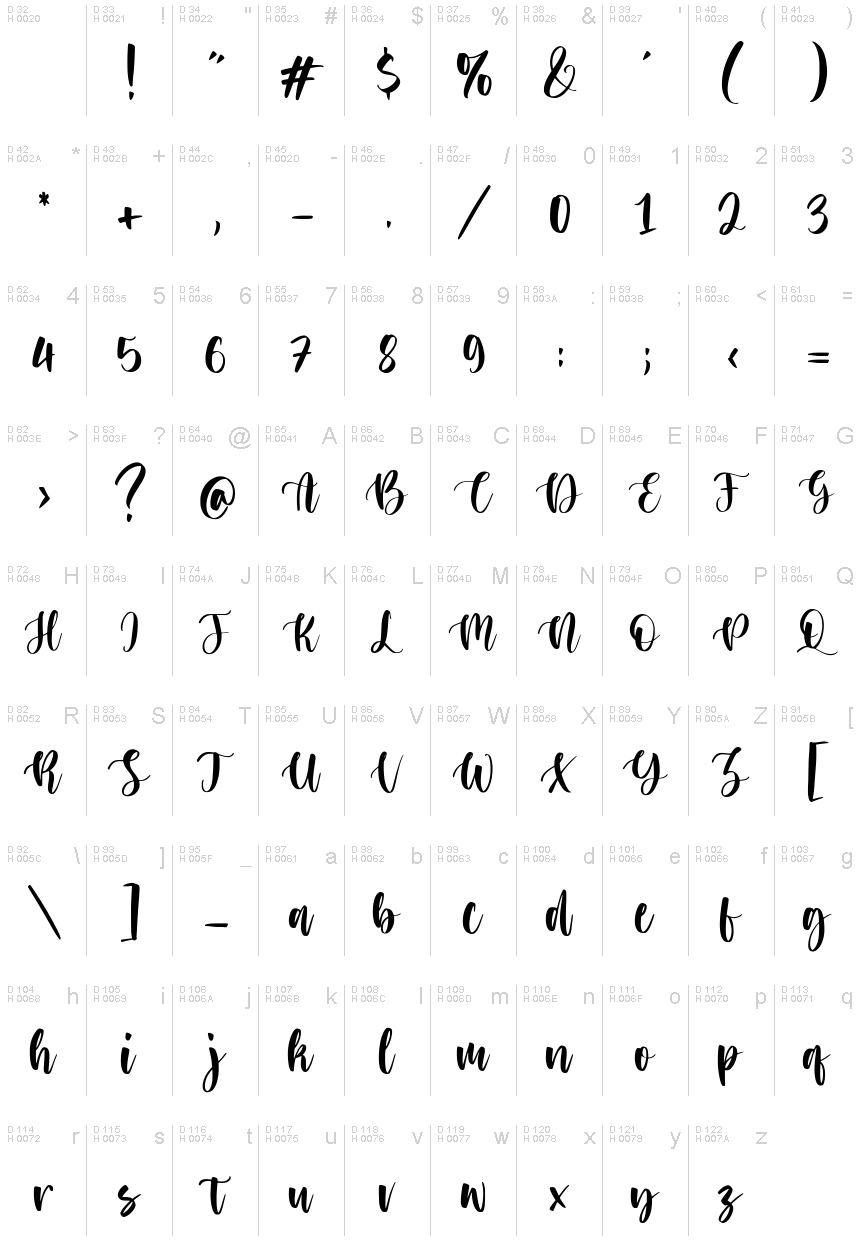
Storytail
Storytail font by Balpirick Studio is a script font where each letter is highly inspired by the artistic brush strokes of calligraphy. The flowing letters have varying high and low contrast thick to thin transitions reminiscent of handwriting which provides a natural handwritten unique look. Curvy and elegant swashes are built into each character much to the delight of designers seeking such complex refined features in free fonts.
Such a well-constructed masterpiece could seriously benefit your design projects whether those were greeting cards, labels, posters, logos, or any other branding project. Use Storytail in your print or digital advertisements for readable material that captures and flows gracefully at first sight.